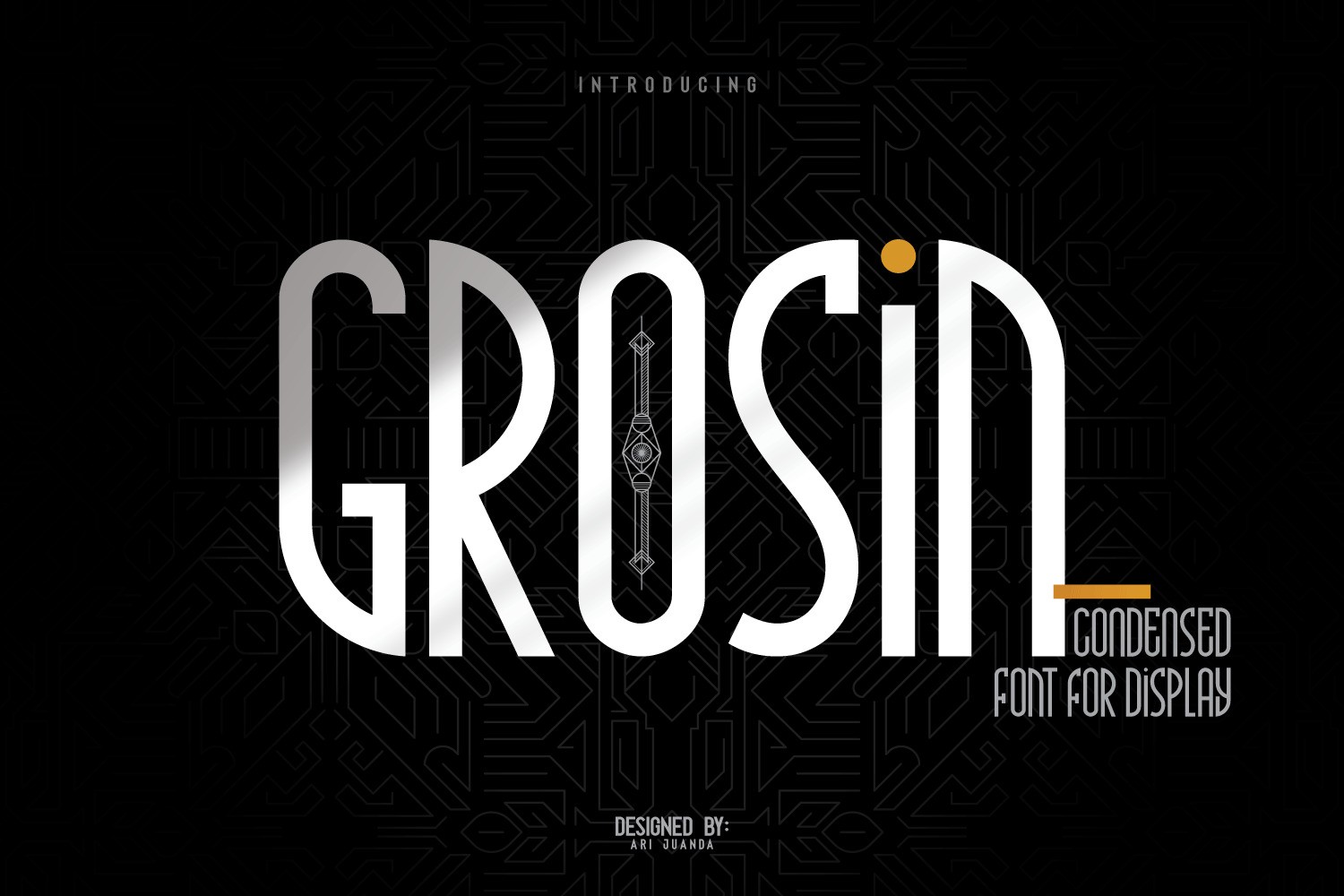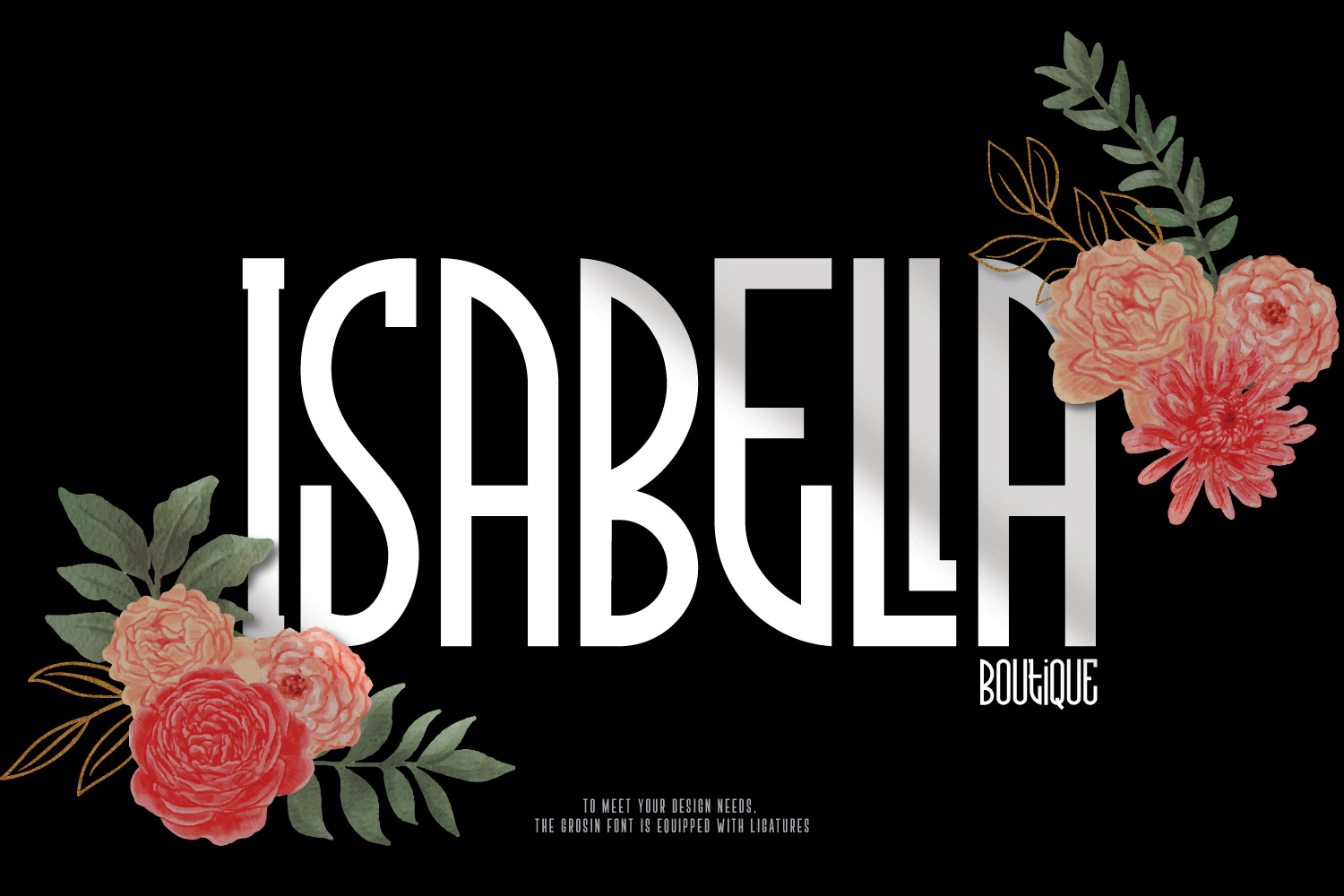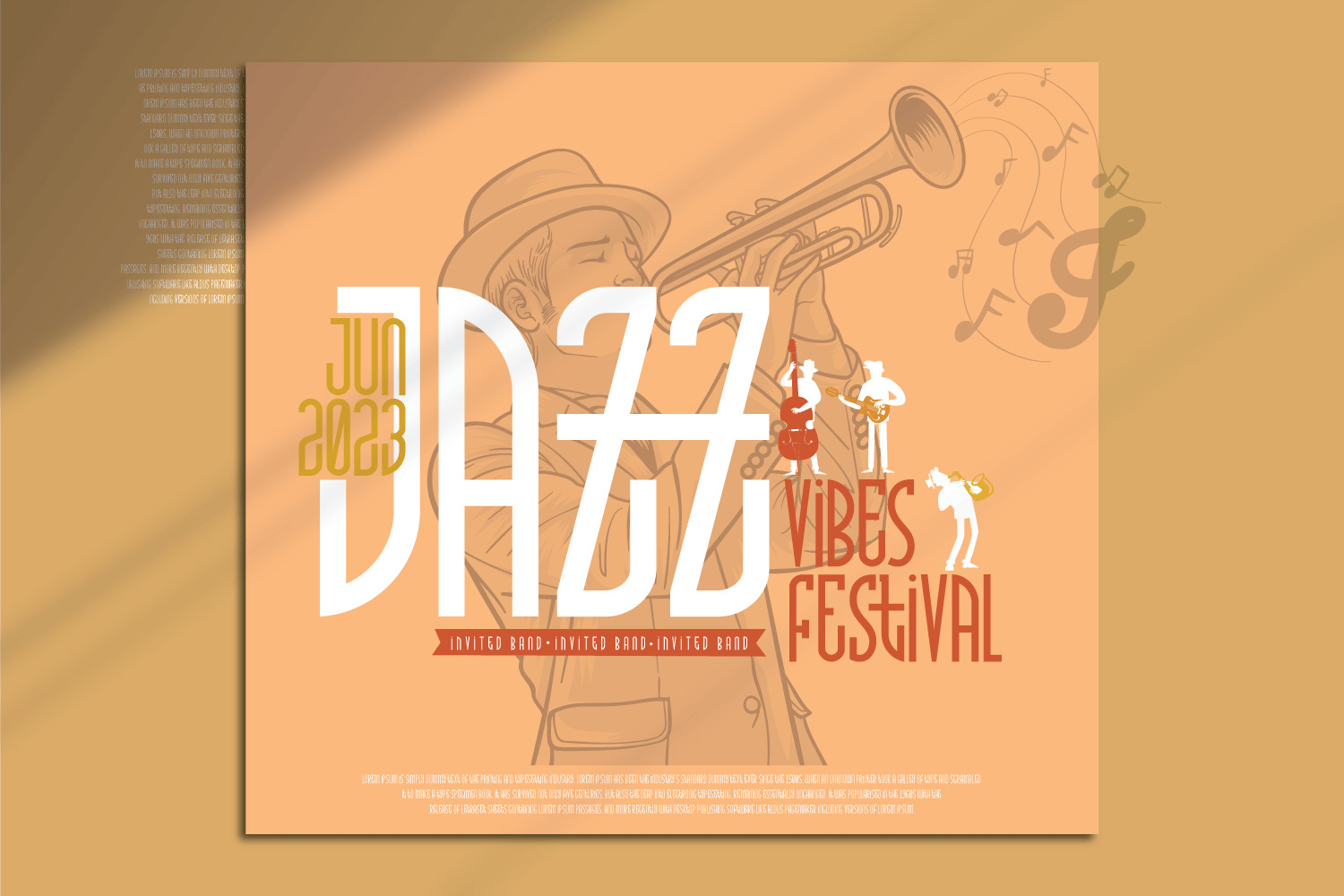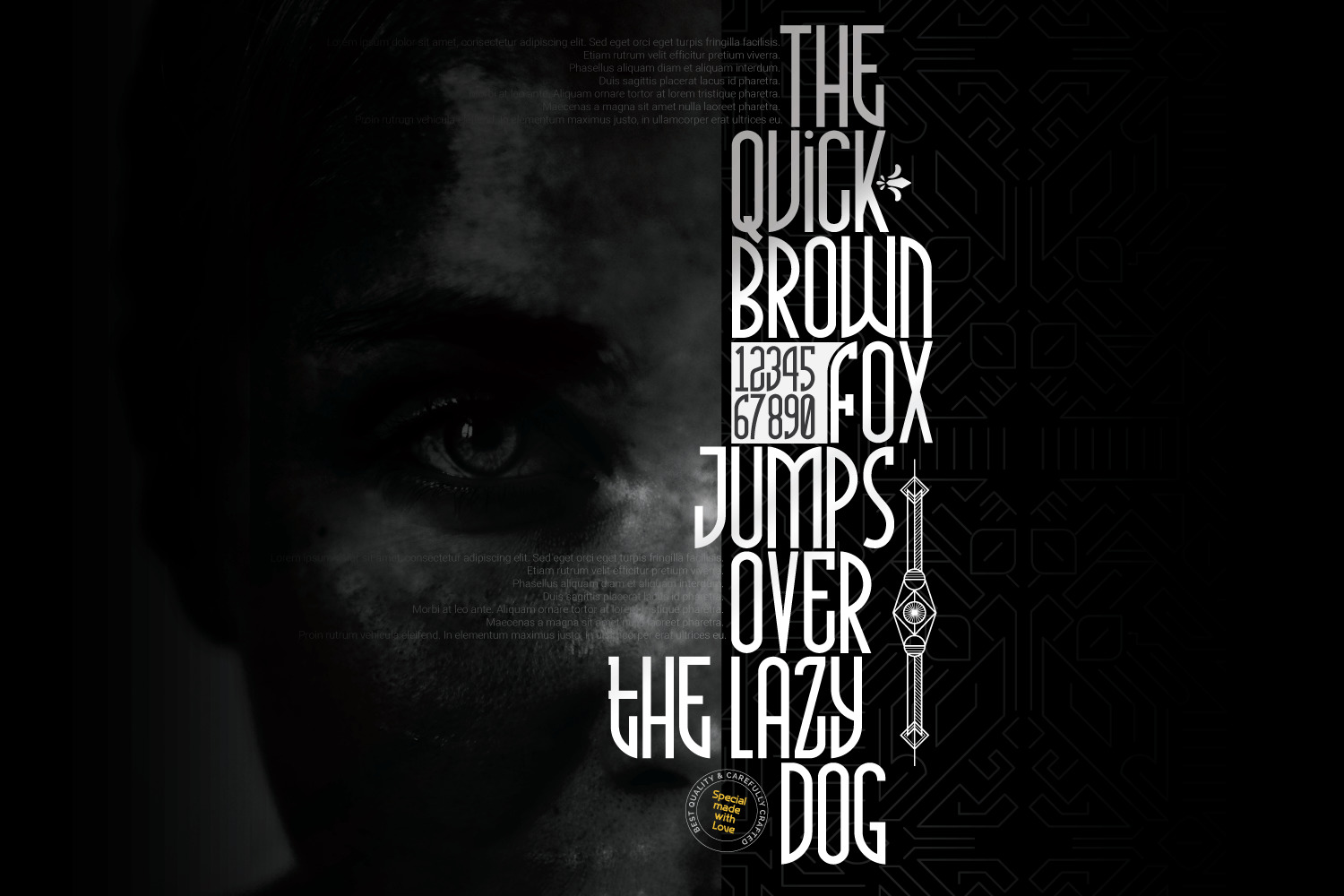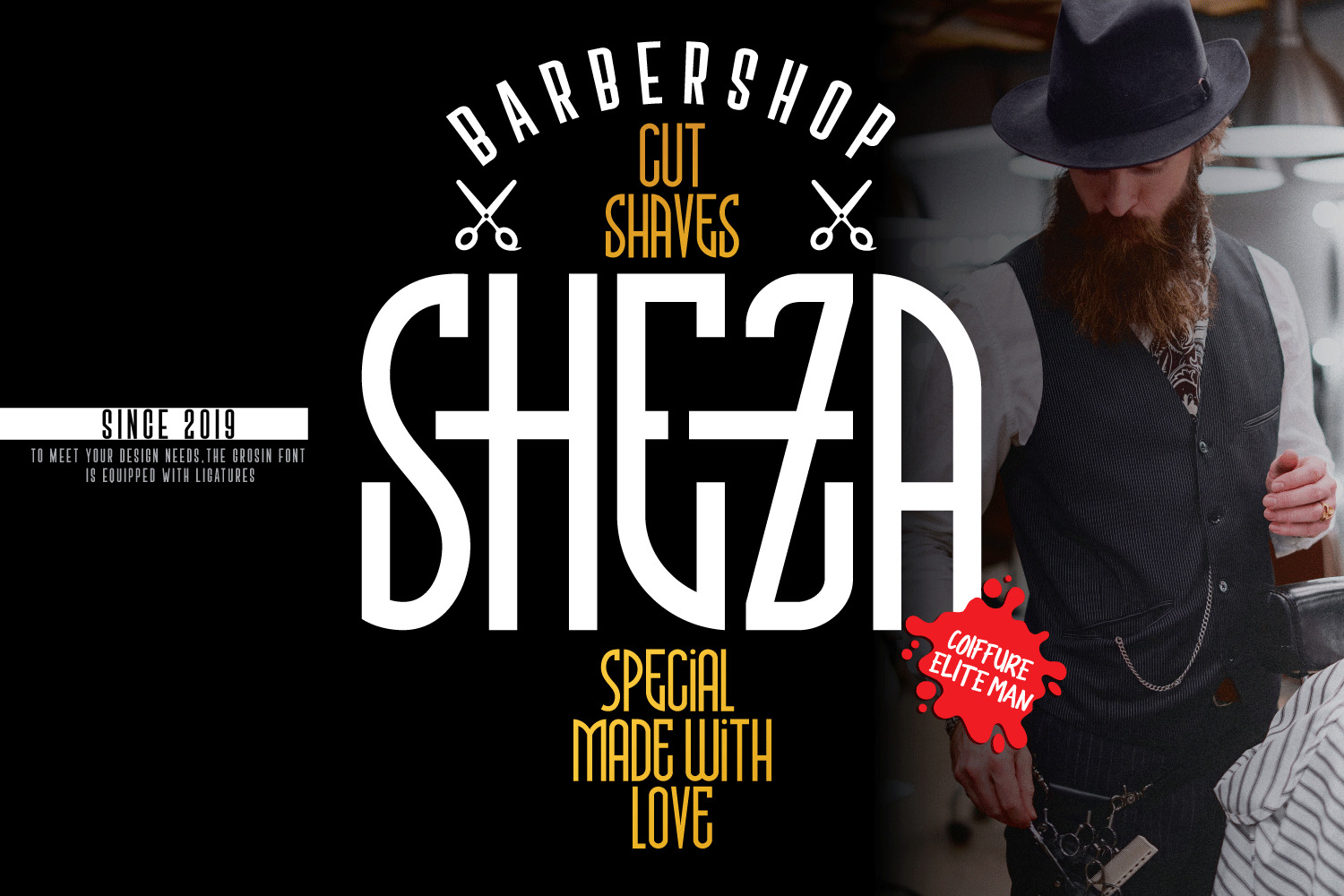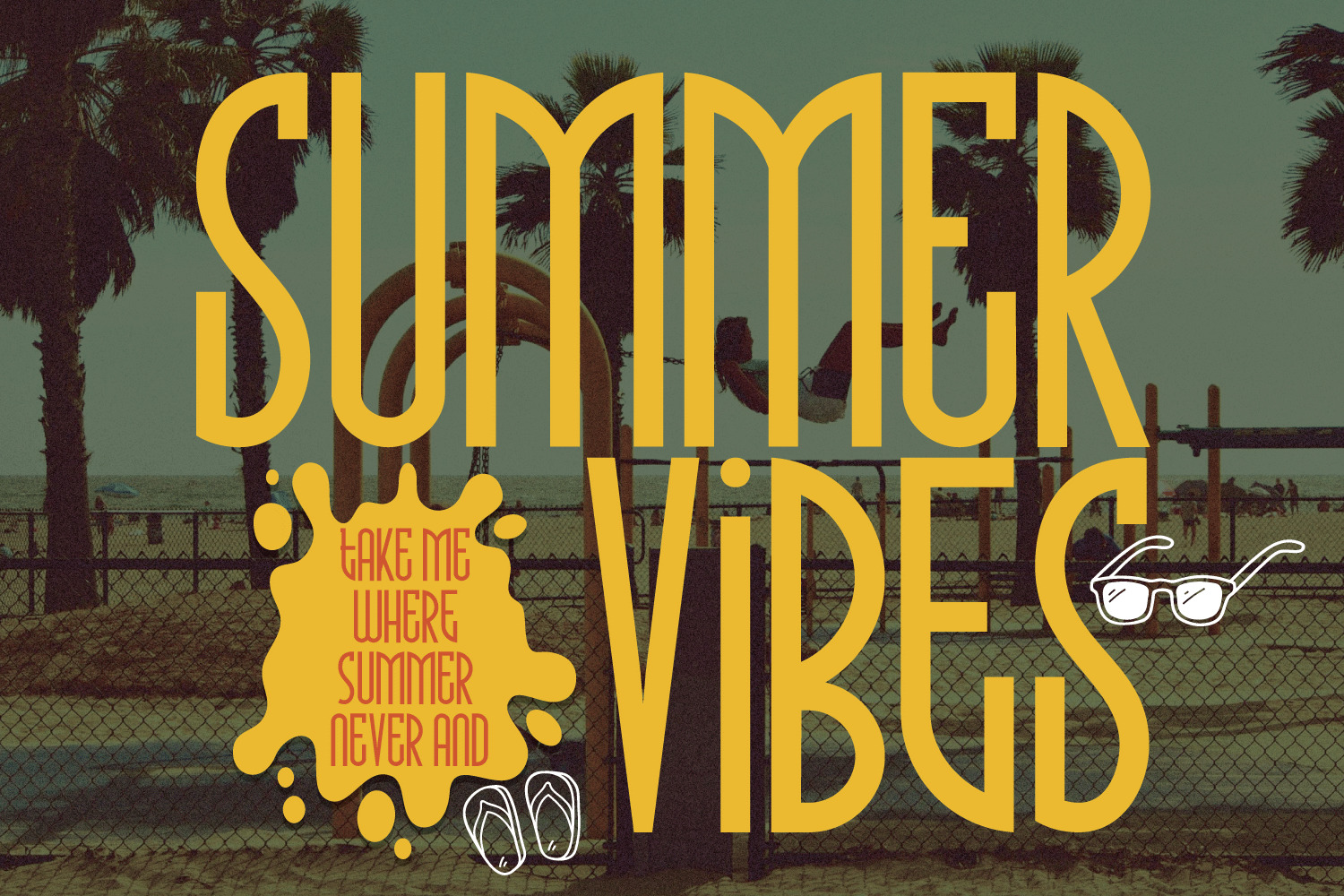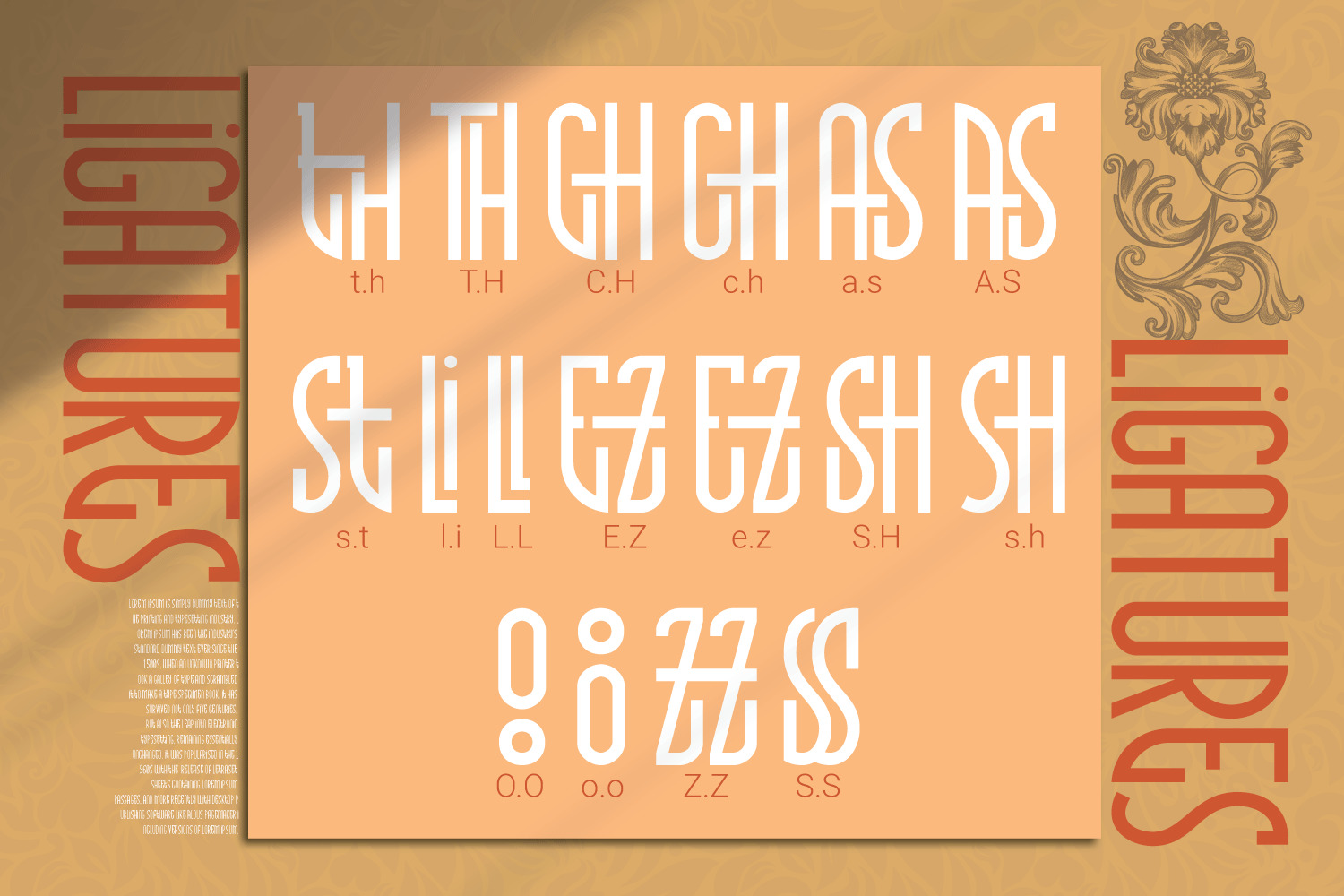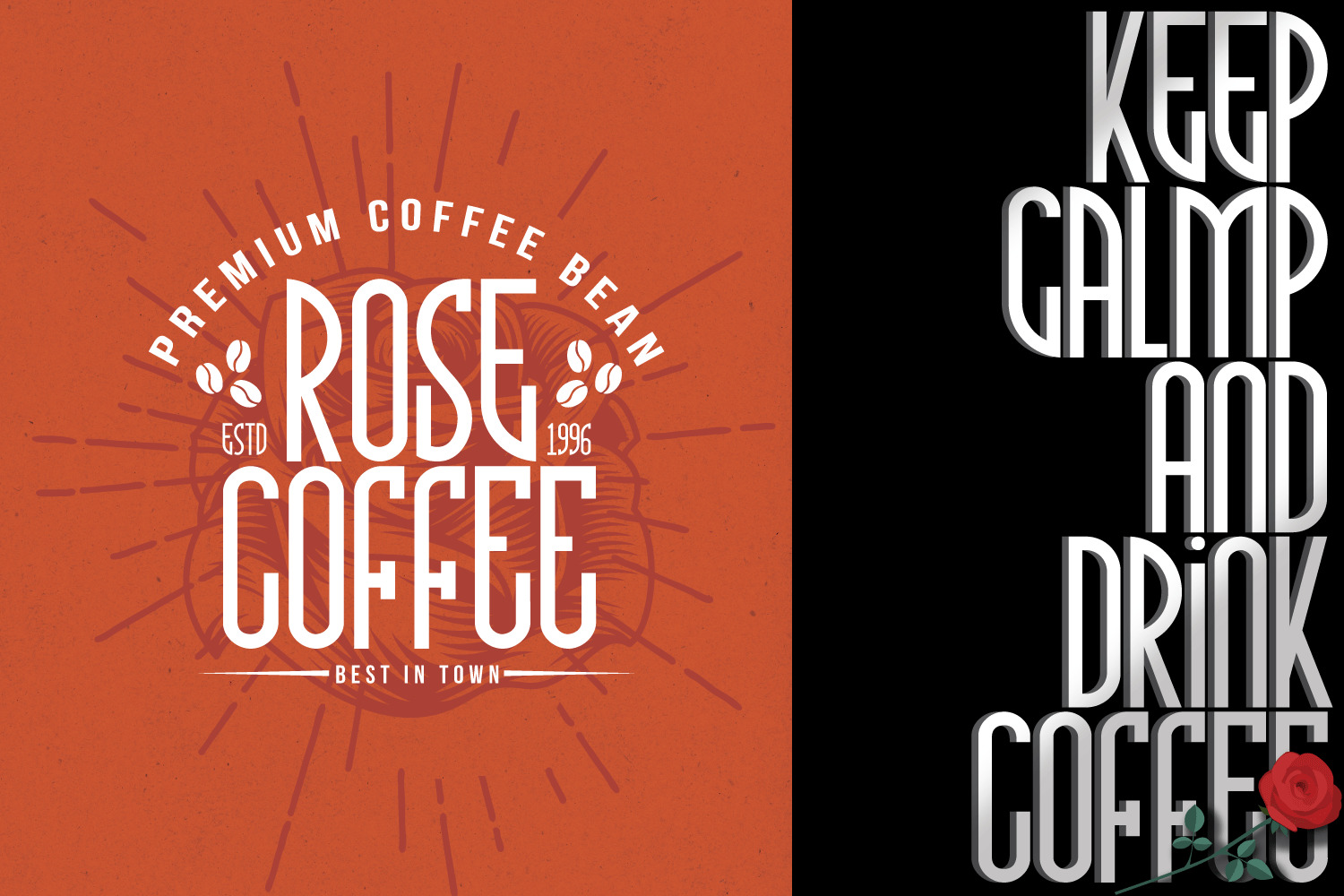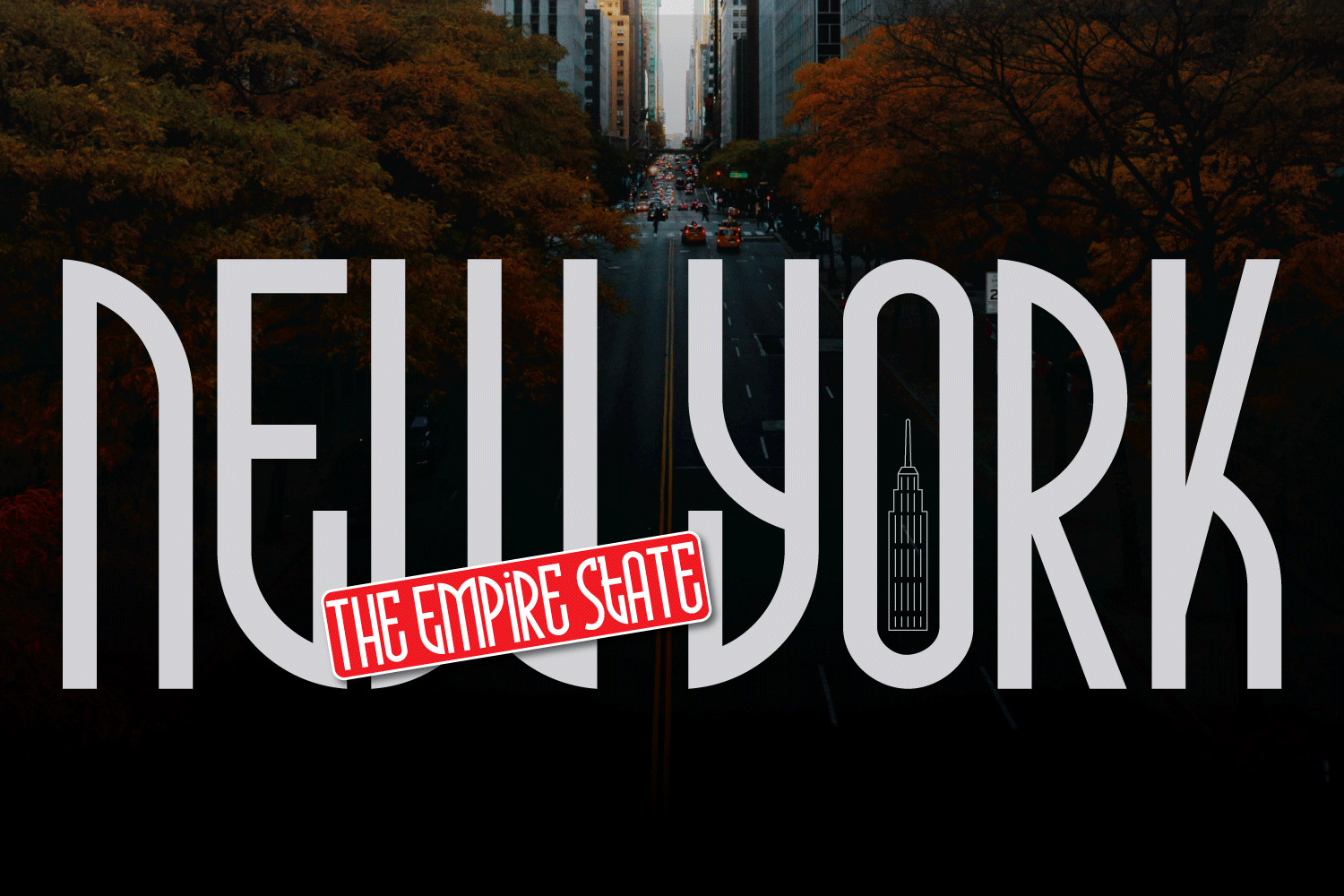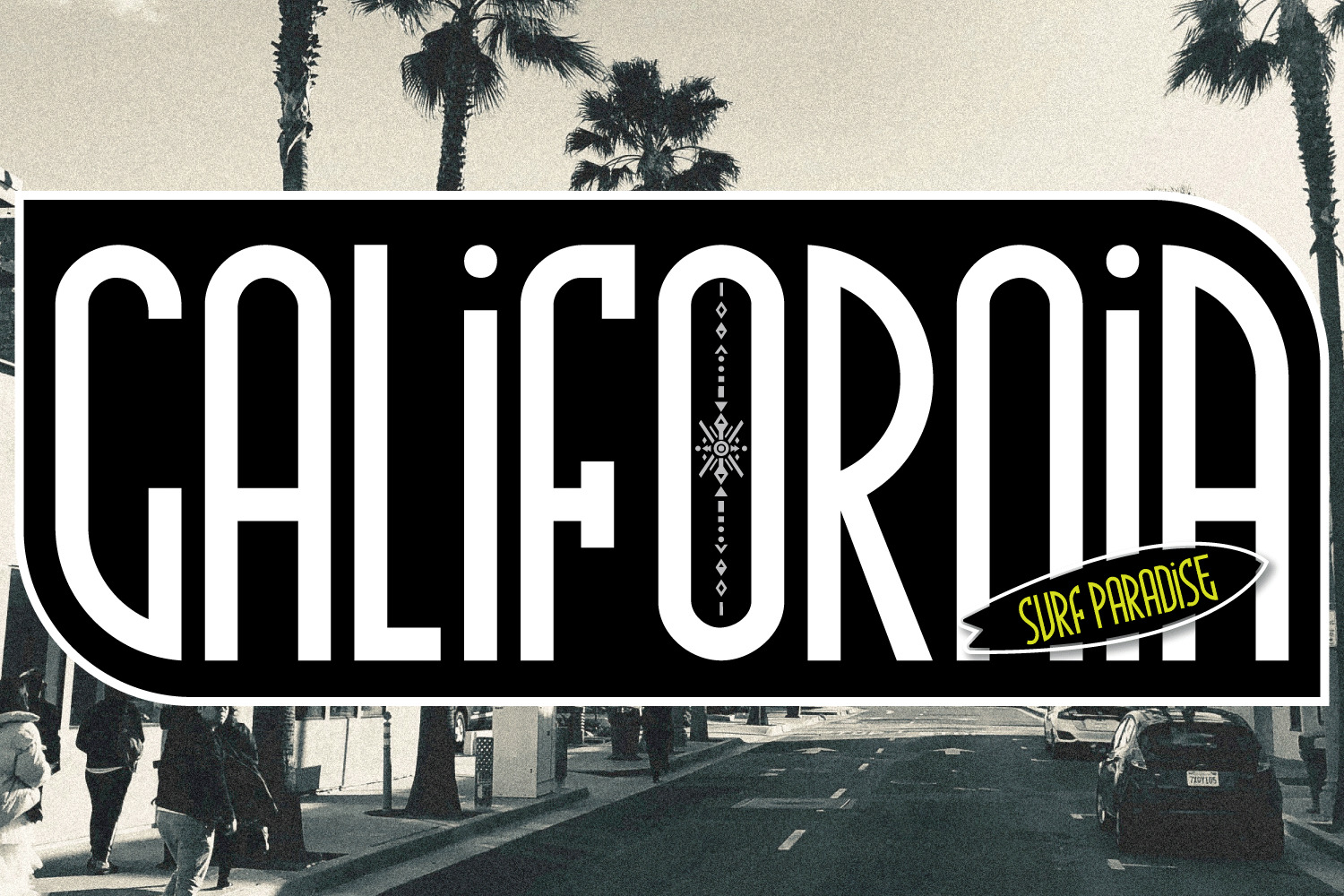
Grosin Font
Introducing our new typeface, Grosin - A Art Deco-inspired display typeface full of character, quirky ligatures, and glyphs to keep your designs fresh.
This is a display font that we recommend using in the following types of work; magazines (titles and layouts), logos and branding, invitations, quotes, blog headers, posters, and advertising.
1. Grosin- A clean San serif font including
Upper & Lowercase characters(ALL CAPS),
2. Ligatures Character
3. Supports Multi linguage (Latin Western Europe), Numbers and
Punctuation